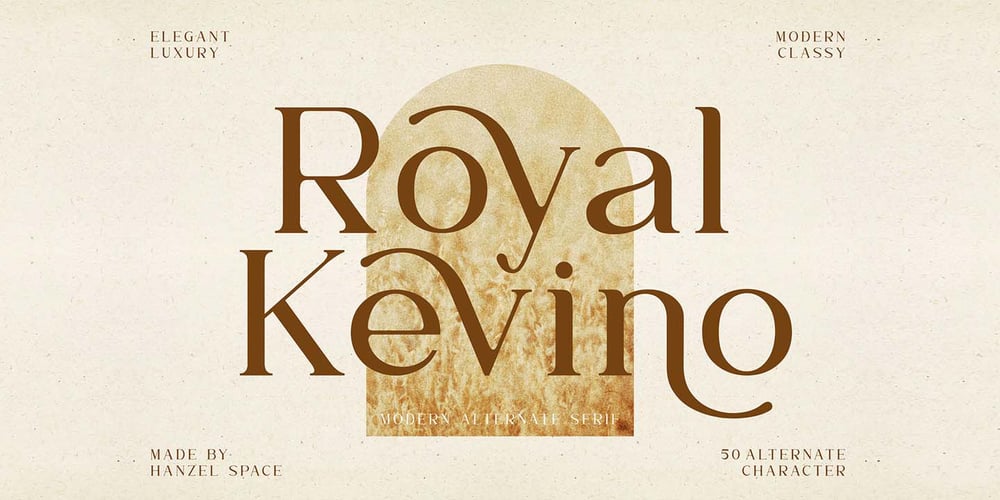
Royal Kevino Font Family was designed by Hanief Farandi and published by Hanzel Space. Royal Kevino contains 1 styles and family package options. This modern serif typeface features serifs. Perfect for gorgeous logos & titles, Royal Kevino will pair beautifully with many fonts and work well with whatever project you’re working on.That’s it! If you have any questions at all , feel free to pop me a private message , I’m always more than happy to help you along ๐ Happy creating! Hanzel Studio